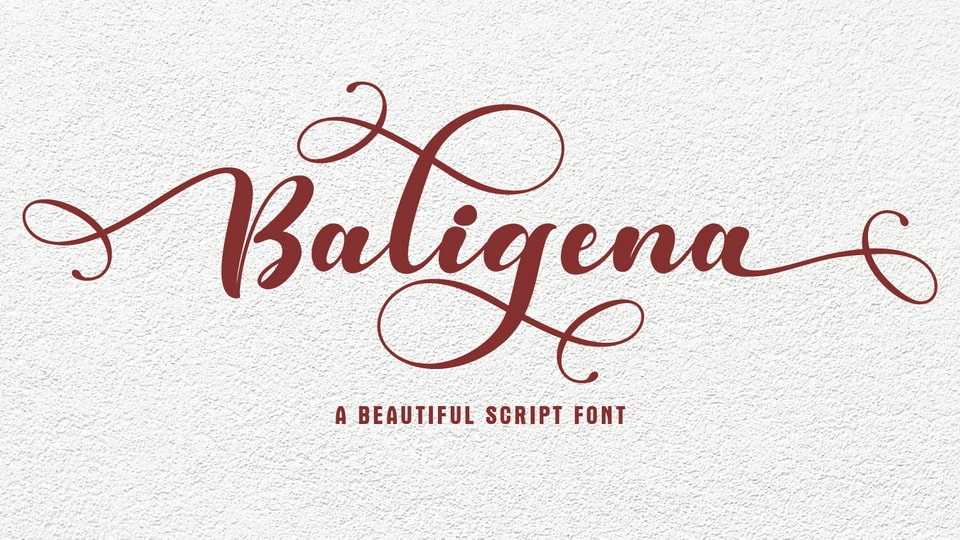
Download Baligena font, a beautiful script typeface. Baligena’s contrasting thick and thin lines make this font suitable for many projects with a romantic touch, such as logo branding, crafting, posters and mores.